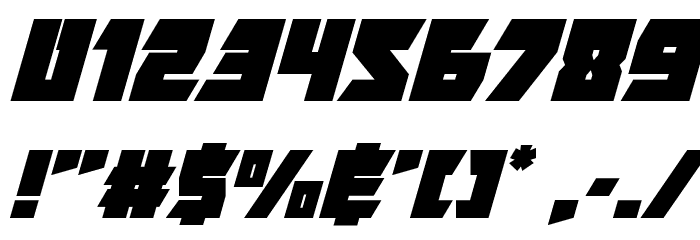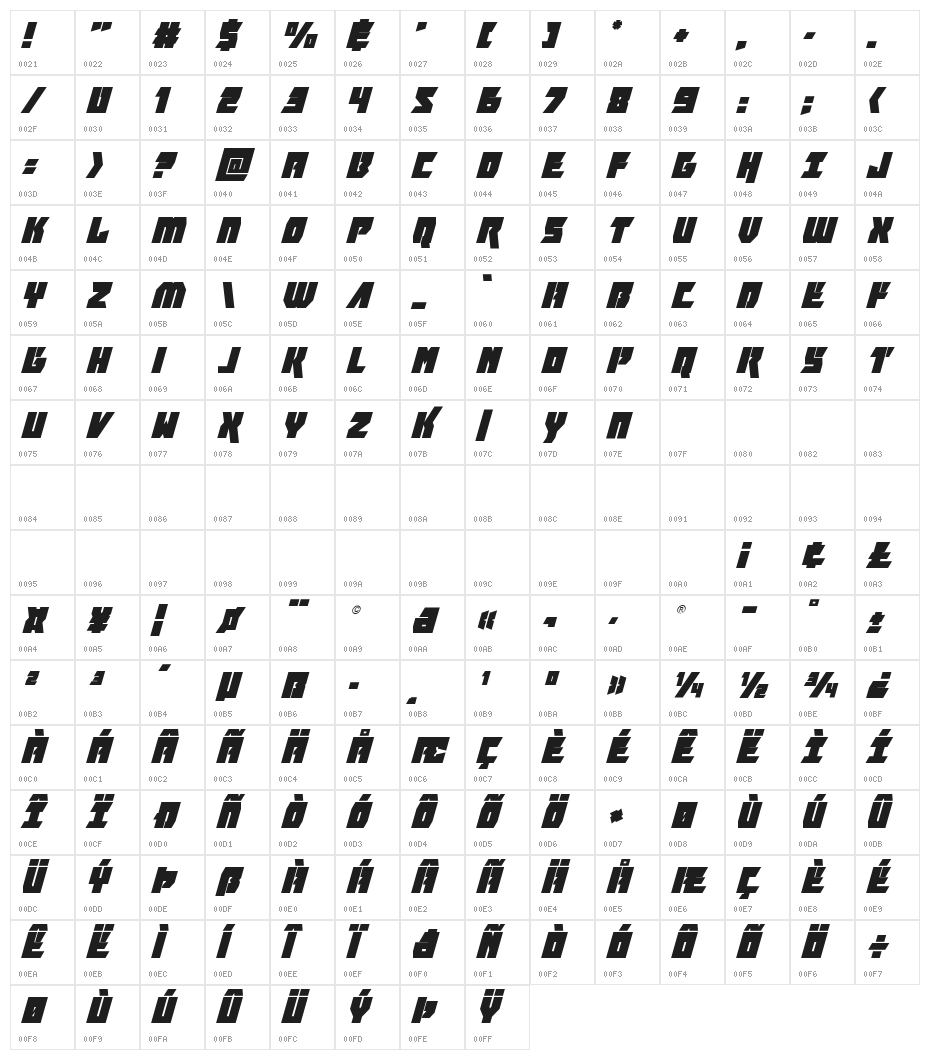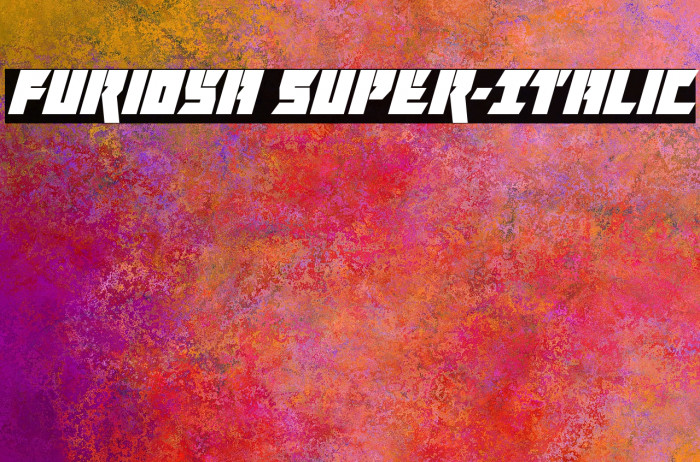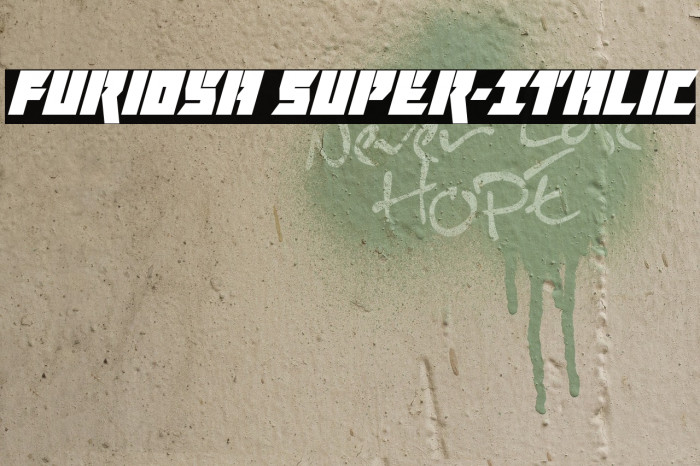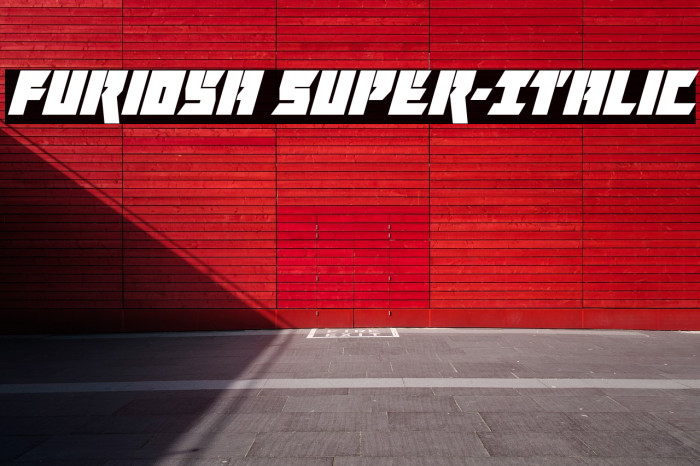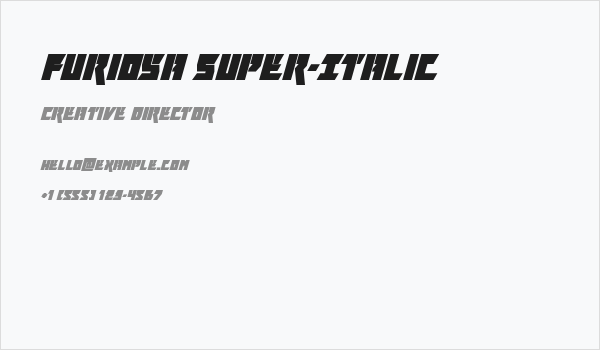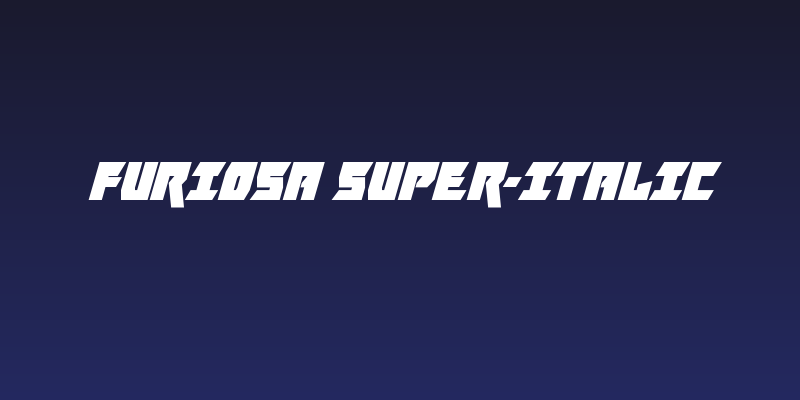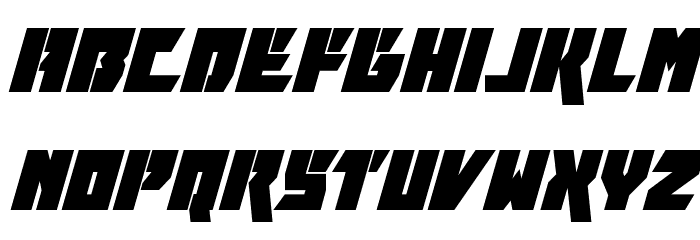
Furiosa Super-Italic Font
Furiosa Super-Italic Description
This font exhibits a bold, angular design with a strong geometric influence. The characters are sharply cut with a distinct slant, giving it a dynamic and aggressive appearance. The uppercase and lowercase letters maintain a consistent style, with each character featuring sharp edges and a forward-leaning posture. The numerals and special characters follow the same design principles, ensuring uniformity across the typeface. The overall look is modern and edgy, making it suitable for attention-grabbing designs.
| Proposed Projects | Ideal for use in sports branding, action movie posters, video game titles, and any project requiring a bold, impactful typeface. |